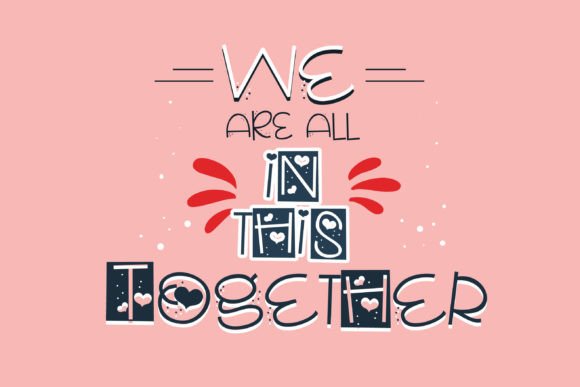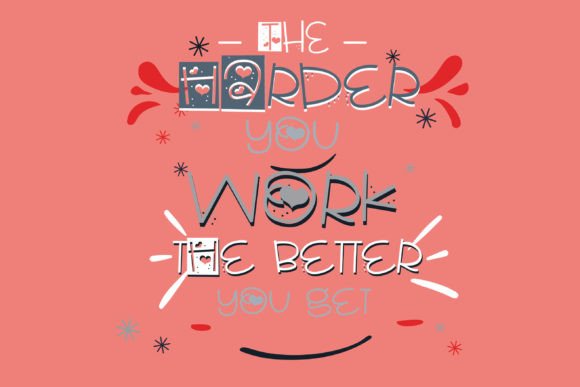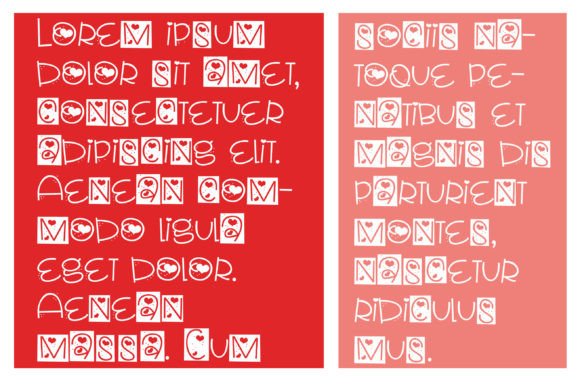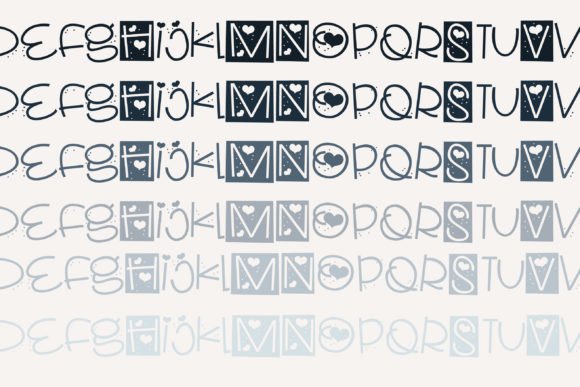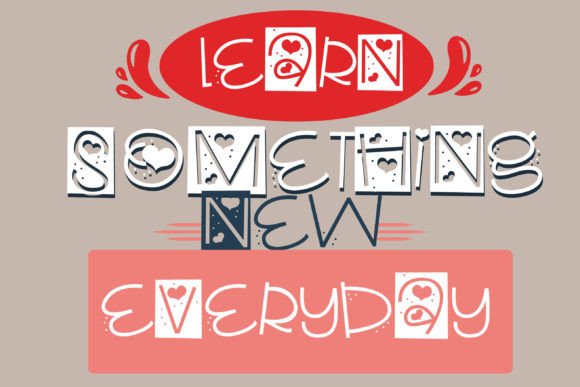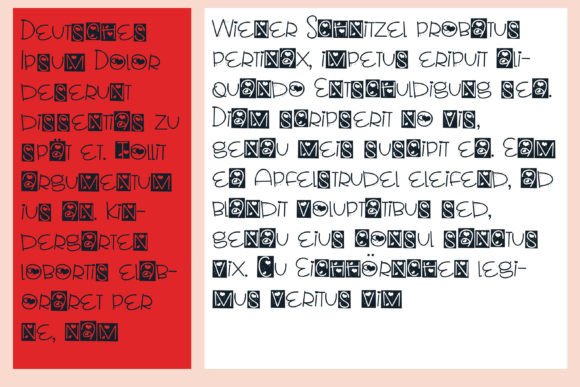
Introduction to Nifty Lovenotes Font
This hand-written print is youthful and sports hearts throughout helping you create the most heartfelt love notes ever.
Impress your crush with this lovely and quirky font and you will definitely make an impact .